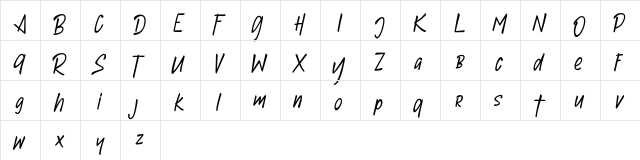
Jello FREE Regular
Design Context for Jello FREE Typeface
Jello FREE is a composed and adaptable typeface that performs quietly and consistently across a wide range of design contexts.
Pro Tip: Use Jello FREE in both headline and body roles to test its range before committing to a single application.